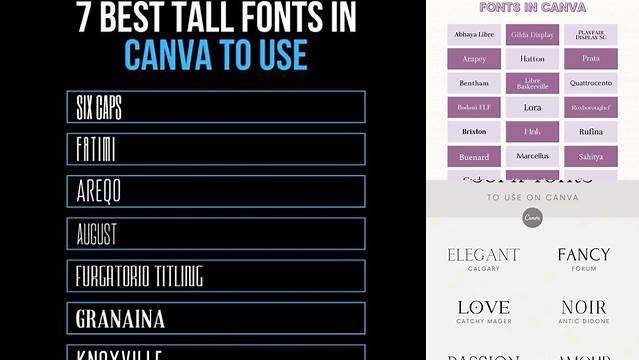
Tall Serif Fonts Canva
Hey design enthusiasts! Ever wondered how to make your designs stand out with a touch of elegance and sophistication? Well, look no further! Today, we're diving deep into the world of Tall Serif Fonts in Canva. These fonts, with their distinct serifs (those little strokes at the end of letters), can instantly elevate your projects, adding a classic and readable flair. Whether you're crafting a logo, designing a website, or creating social media graphics, choosing the right font is paramount. So, buckle up, because we're about to explore everything you need to know about Tall Serif Fonts in Canva, from their characteristics and best uses to how to find and effectively utilize them.
Exploring the World of Tall Serif Fonts in Canva
Alright, let's get started! Tall serif fonts in Canva are a fantastic way to inject a sense of authority, tradition, and readability into your designs. They are generally characterized by their tall structure and the presence of serifs. Serifs are the small decorative strokes at the end of the letters. They provide a visual structure that guides the eye across the page, making long blocks of text easier to read. These fonts come in many different styles, from the classic and elegant to the modern and minimalist. They can be used in a wide variety of projects, including logos, headlines, body text, and more.
Choosing a tall serif font in Canva will involve a bit of personal preference. Some fonts have very pronounced serifs, while others are more subtle. Some are more formal, while others are more playful. Consider the overall tone and style of your design when selecting a font. If you’re aiming for a classic and sophisticated look, a traditional serif font like Times New Roman or Garamond might be a great choice. If you’re going for something more contemporary, a font like Playfair Display or Montserrat might be better suited. The key is to experiment and find the fonts that best fit your vision. Once you've chosen a font, you can then further refine its appearance by adjusting its size, weight, and kerning.
Additionally, Canva offers a wide range of tools for customizing your fonts. You can change the color of the font, add effects like shadows or outlines, and even curve your text to fit unique designs. Don't be afraid to play around with these features to see how they can enhance your design. Remember, the goal is to find a tall serif font in Canva that not only looks good but also communicates the right message to your audience. The right font can convey authority, professionalism, or creativity. It can also help to establish brand recognition, as people begin to associate a particular font with your brand. So, take the time to explore the options and find the fonts that speak to you. The more you experiment and explore, the better you will become at choosing the right font for your designs.
Finding the Perfect Tall Serif Font in Canva
Well, first, you can use the search bar within the font library to filter for serif fonts. This will narrow down the options to show you only the serif fonts available. From there, you can begin to scroll through the list and preview different fonts. When previewing, pay close attention to the characteristics of each font. Notice the height of the font and whether it leans more towards being a tall serif style. Observe the shape of the serifs. Are they sharp and angular, or rounded and soft? Also, consider the overall weight and style of the font. Is it light and elegant, or bold and strong? Think about how these characteristics might align with your design goals.
Best Practices for Using Tall Serif Fonts in Your Designs
Using tall serif fonts in Canva effectively requires a few key best practices. First and foremost, ensure readability. While serif fonts are often great for body text, their readability can vary. Choose fonts that are clear and legible, especially in smaller sizes. Consider the x-height, which is the height of the lowercase 'x', and how it impacts readability. A higher x-height generally increases readability, as it makes the letters easier to distinguish. Avoid using overly ornate or stylized serif fonts for large blocks of text, as they can become difficult to read. Instead, save these fonts for headings, titles, or accent text.
Then, focus on hierarchy and contrast. Tall serif fonts in Canva can be incredibly versatile. Use them to create visual hierarchy in your designs. For instance, you might use a bolder, larger serif font for your main heading and a smaller, lighter serif font for your subheadings or body text. Use contrasting font weights and sizes to create visual interest and guide the viewer's eye. The contrast between the font and its background is critical. Always ensure that your text has sufficient contrast against the background to make it easy to read. Dark text on a light background or light text on a dark background typically works best. Avoid using colors that are too similar to the background color, as this will make the text difficult to discern.
Furthermore, keep in mind that pairing is vital. Carefully consider the fonts you choose to pair with your tall serif fonts in Canva. While serif fonts often work well together, it's essential to choose fonts that complement each other in terms of style, weight, and character. You might pair a classic serif font with a clean sans-serif font for a balanced look. Or, you can use a more modern serif font with a geometric sans-serif font for a contemporary aesthetic. You can also use a single font family, which is a collection of fonts that share a similar design but vary in weight, style, and other characteristics. Consistency is key, so use a consistent set of fonts across all of your designs to maintain a cohesive brand identity.
Canva's Font Library: Navigating for Tall Serifs